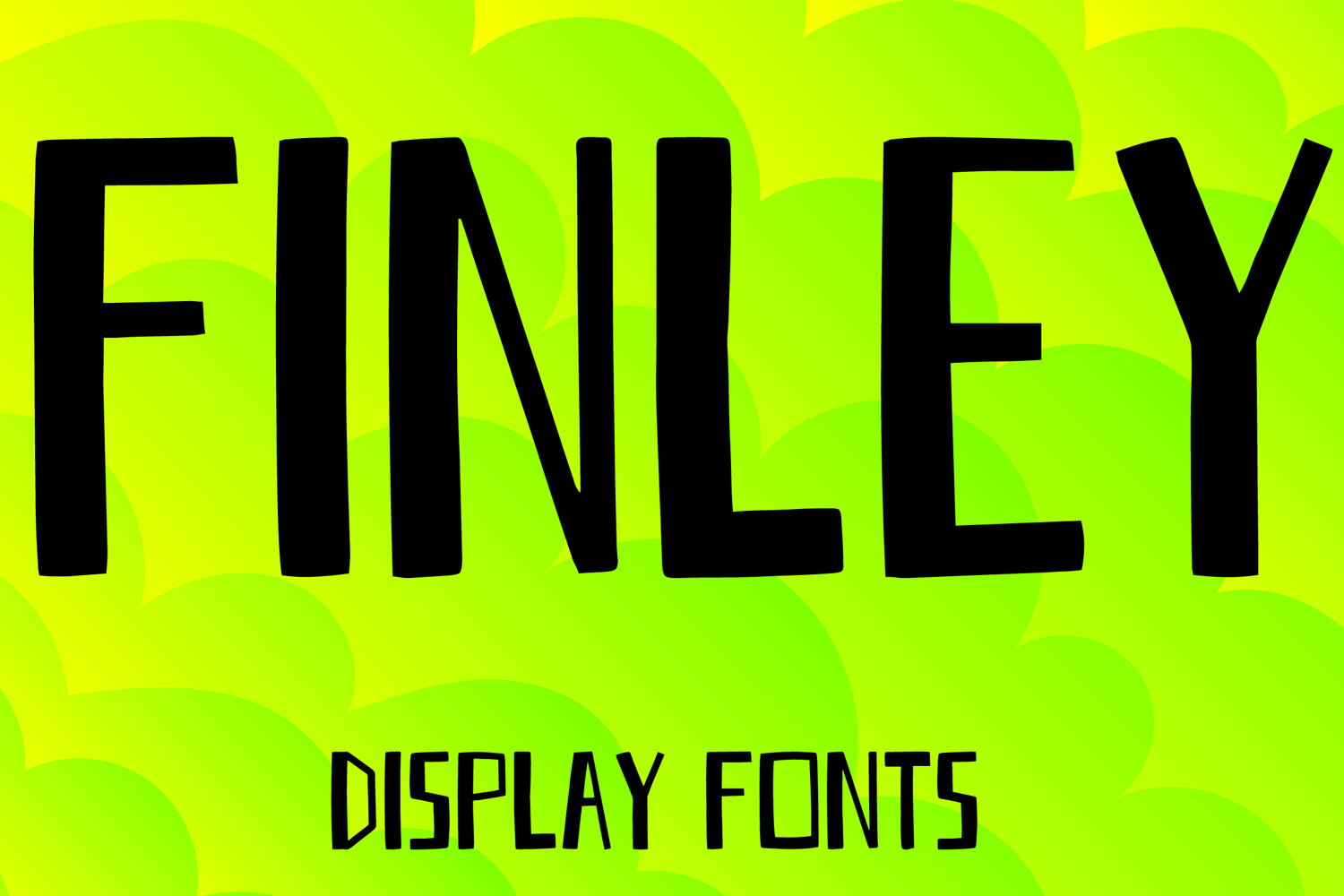
FINLEY
FINLEY is a bold condensed display font with a clean handcrafted style and strong modern character. Its uppercase letterforms feature tall narrow proportions, thick solid strokes, and slightly irregular edges that create a striking, confident, and eye-catching look. Designed with uppercase letters A–Z and numbers 0–9, FINLEY is perfect for branding, posters, packaging, logos, headlines, social media graphics, and creative projects that need a bold and memorable statement.